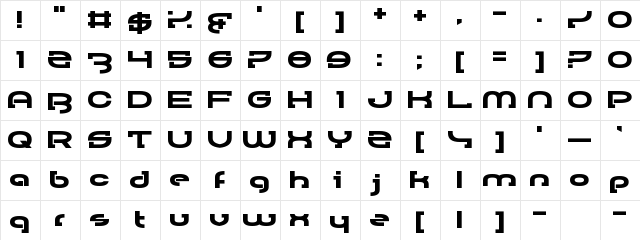
Rally Blade Regular
Design Context for Rally Blade Typeface
Rally Blade offers clean, dependable letterforms without strong stylistic allegiance, making it a practical choice for designers who need flexibility.
Pro Tip: Use Rally Blade in both headline and body roles to test its range before committing to a single application.